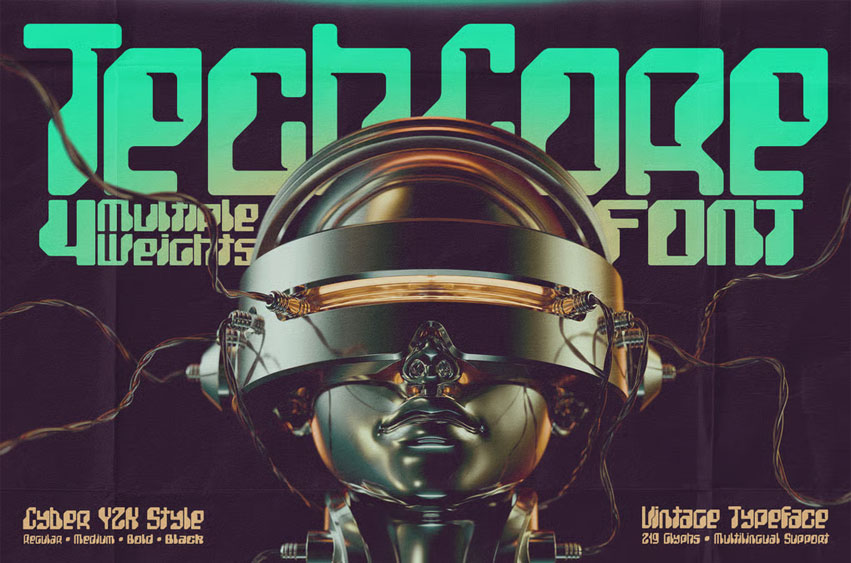
TechCore Font
TechCore Font is a cyber-vintage typeface that fuses retro computer aesthetics with futuristic robotic flair, making it perfect for bold graphic designs. Inspired by early-age circuits and classic arcade vibes, it brings a unique balance of nostalgia and digital edge to your projects.
The TechCore family includes four weights: Regular, Medium, Bold, and Band lack. Each font contains 219 glyphs and supports multiple languages — check the screenshot to view the full character set!